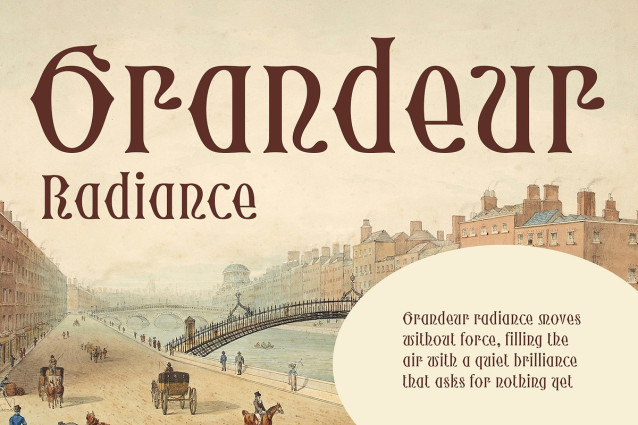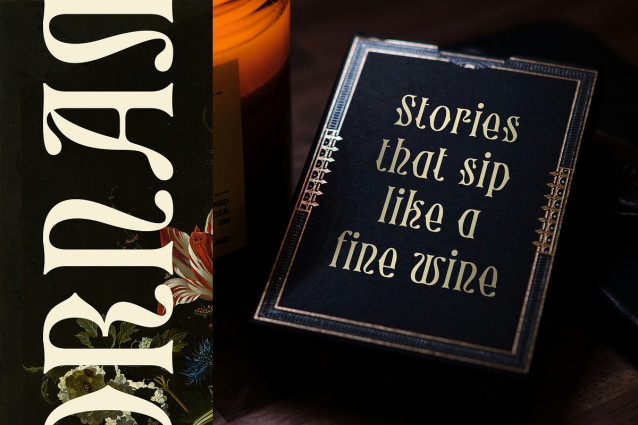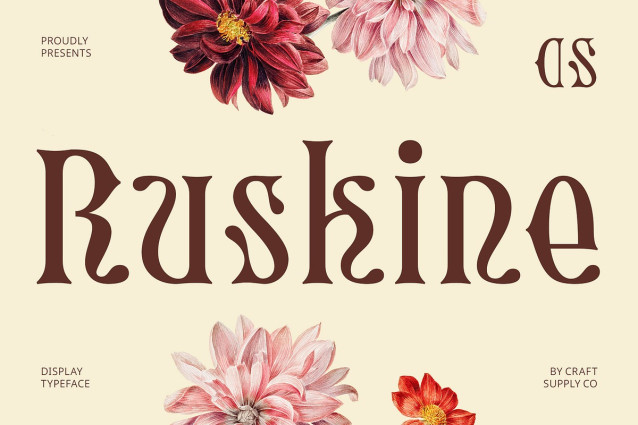
CS Ruskine Font
CS Ruskine Font is a display serif font inspired by the timeless beauty of uncial script—an ancient form of writing rooted in medieval Latin manuscripts. Its softly rounded, flowing letterforms exude a sense of tradition, artistry, and historical sophistication, perfect for designs that aim to tell stories with depth and elegance.
Graceful Letterforms with a Legendary Touch The font’s smooth, curved strokes and absence of harsh angles give it a warm and approachable presence, reminiscent of handcrafted calligraphy from centuries past. Each character is thoughtfully designed to preserve the natural rhythm of ancient writing, making it ideal for projects where visual storytelling is key.
Perfect for Fantasy, Mythology, and Classic Themes CS Ruskine shines in fantasy-themed visuals, mythological tales, historical fiction, or anything inspired by old-world traditions. It’s a perfect match for book titles, movie posters, branding for heritage-inspired products, or creative projects that evoke wonder, magic, and cultural richness.
Bridging History and Modern Design While grounded in classic forms, CS Ruskine maintains a clean and digital-ready finish, allowing it to integrate seamlessly into contemporary design workflows. It offers a distinctive character without compromising on legibility, making it both decorative and functional. CS Ruskine invites you to craft stories with visual elegance.